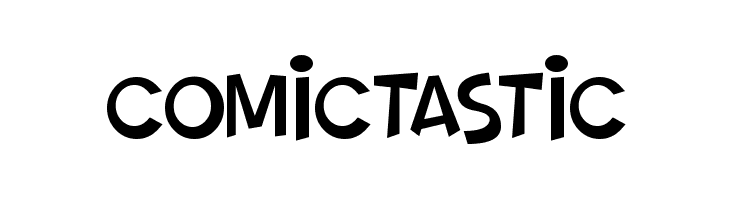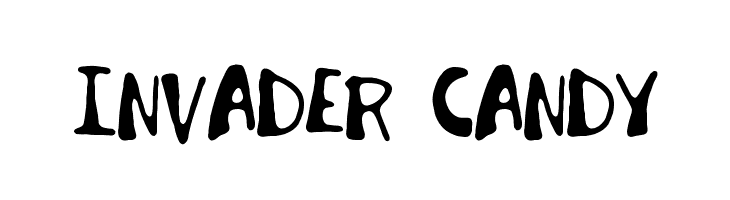
A playful, handwritten font with uneven strokes and a casual, whimsical style.
An elegant script font with flowing, calligraphic lines and sophisticated swashes.
A bold, decorative font with a fingerprint-like texture and modern appeal.
A modern, semi-bold sans-serif font with clean lines and excellent readability.
A bold, 3D italic font with outlined characters and a dynamic style.
A bold, geometric font with a futuristic and blocky design.
An elegant outline script font with flowing, interconnected characters.